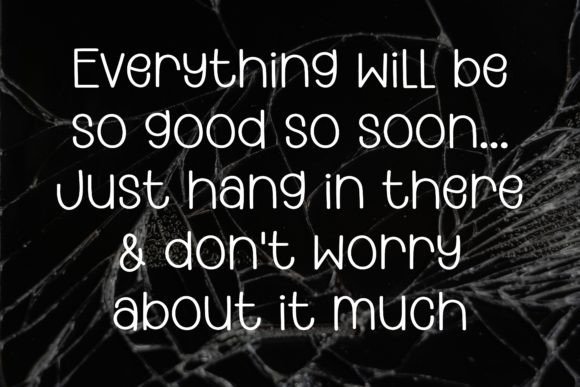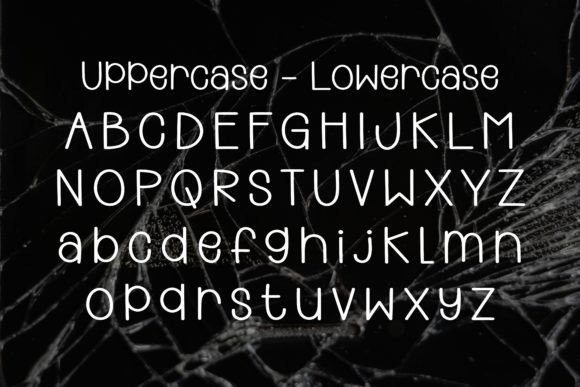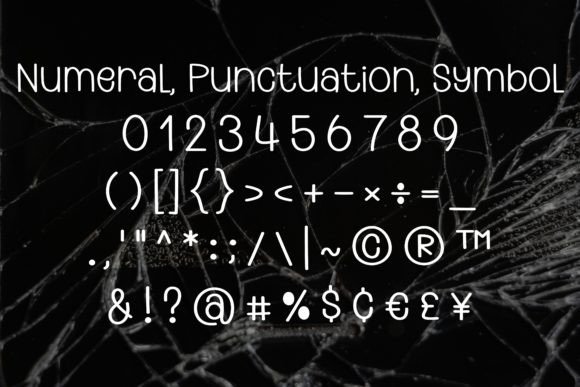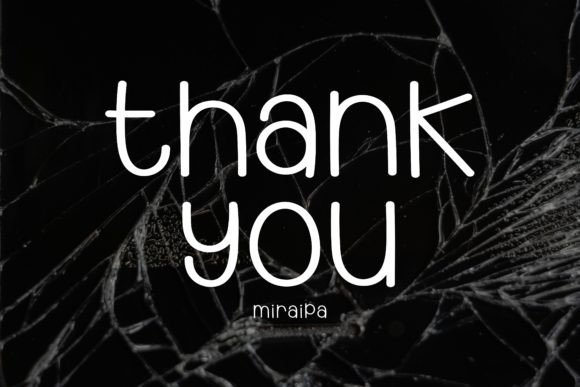
Introduction to Fragile Font
Fragile is designed in a modern and minimalist handwritten sans serif font style.
It would be perfect for your projects or diary planners You can also try it for Easter, back to school, weddings, party decoration, invitations, Fall, Halloween, Christmas, posters, blogs, clothing, child-related designs, greeting cards, social media posts, or anything that needs a friendly touch.